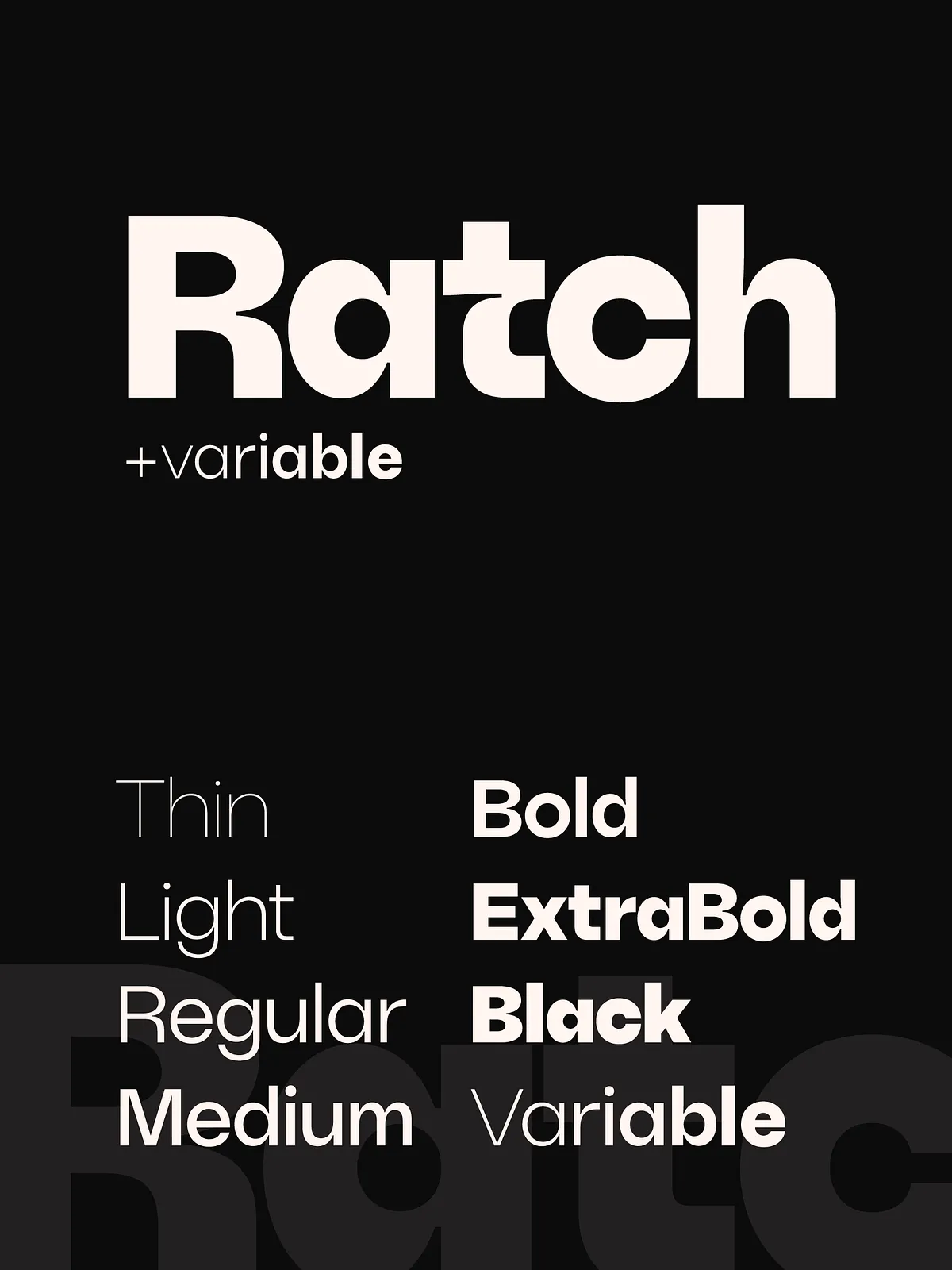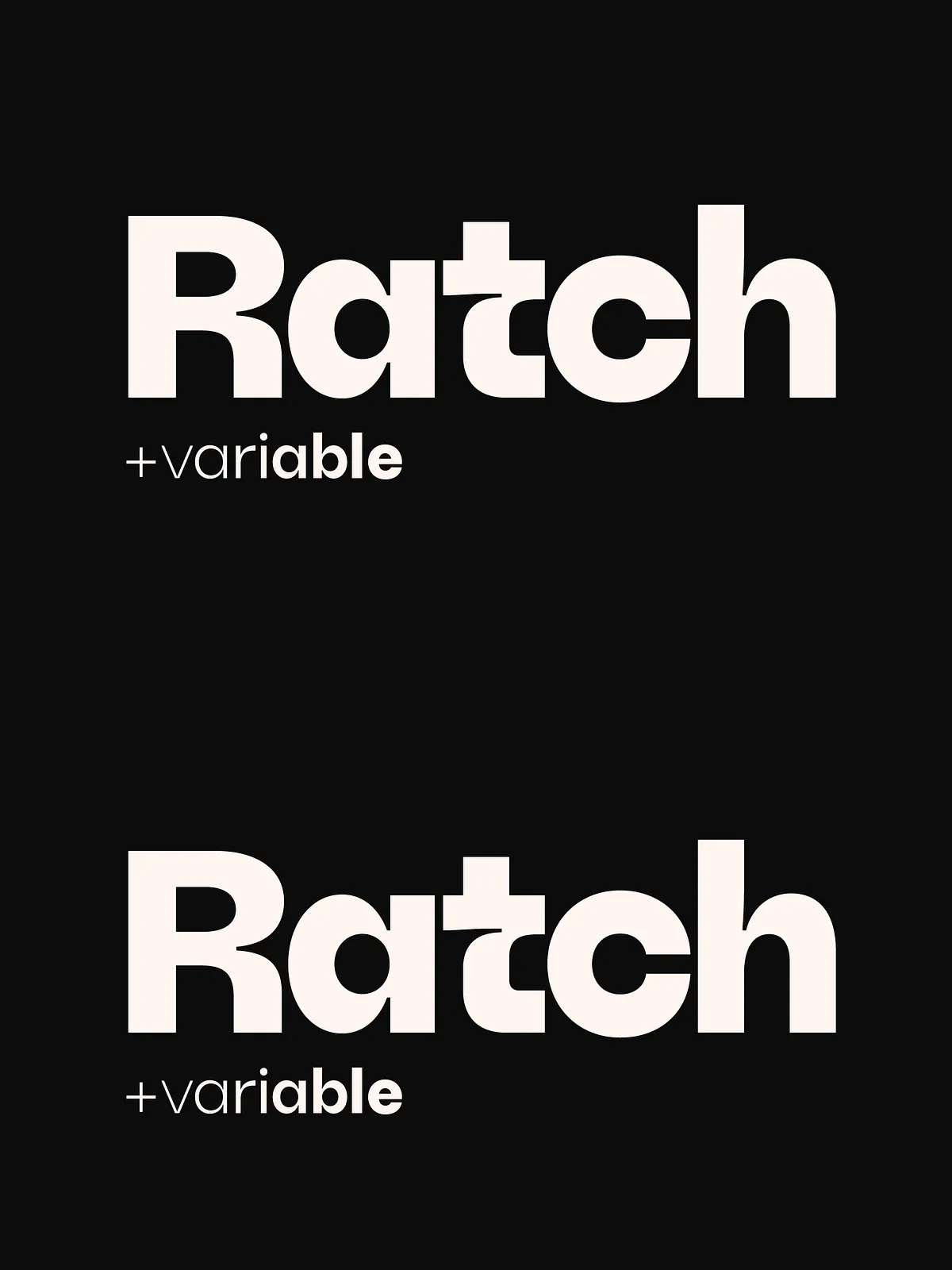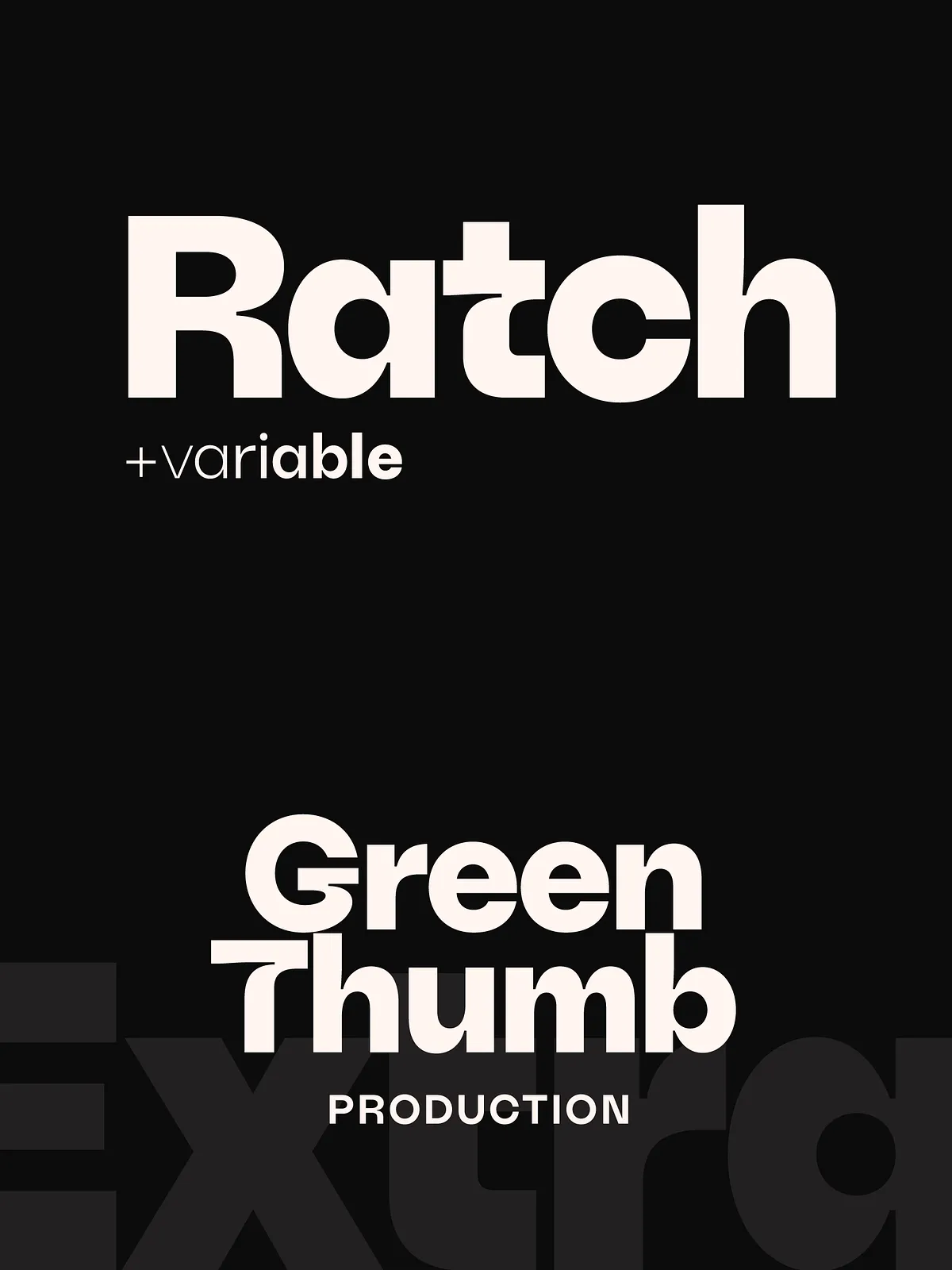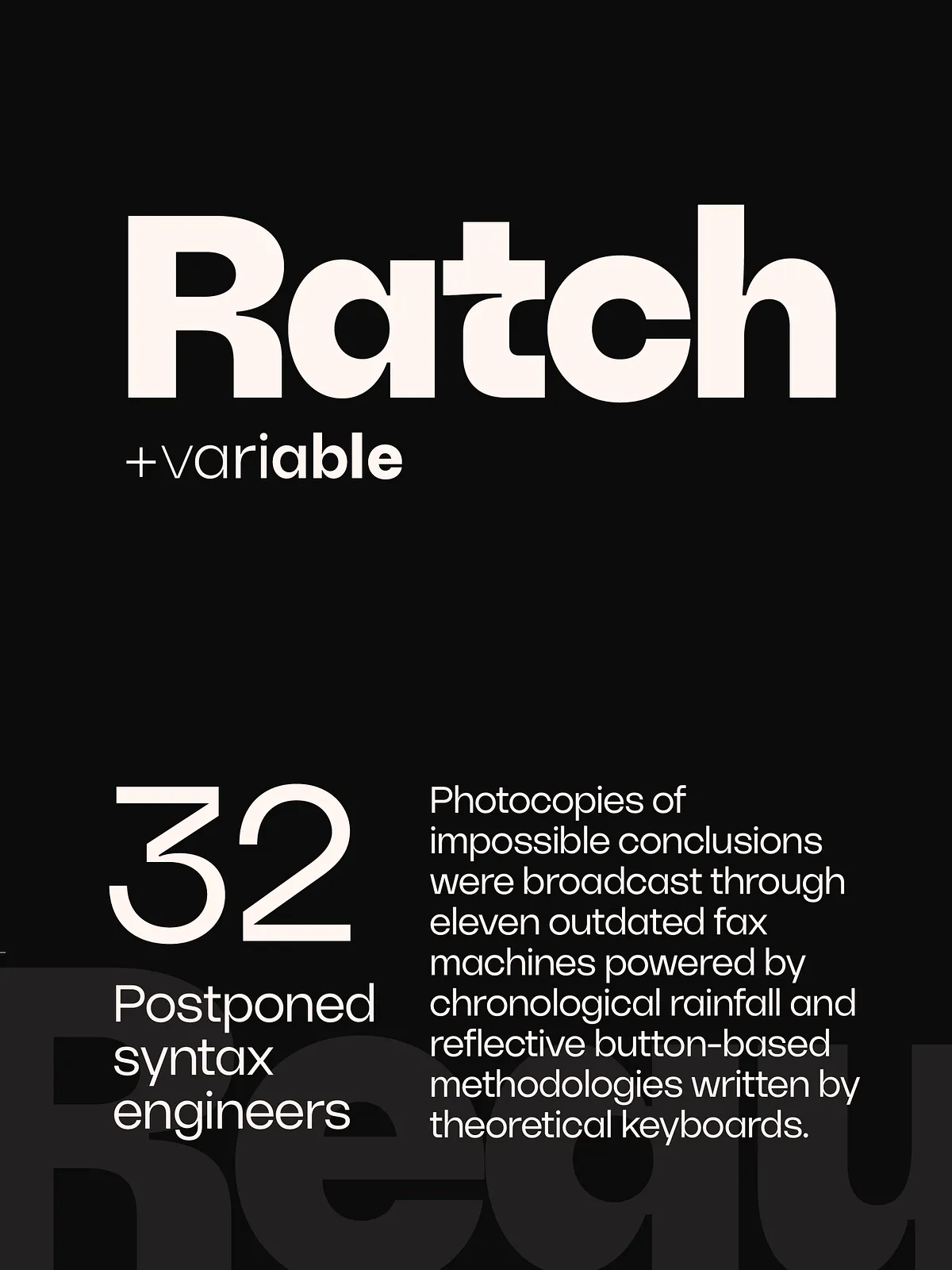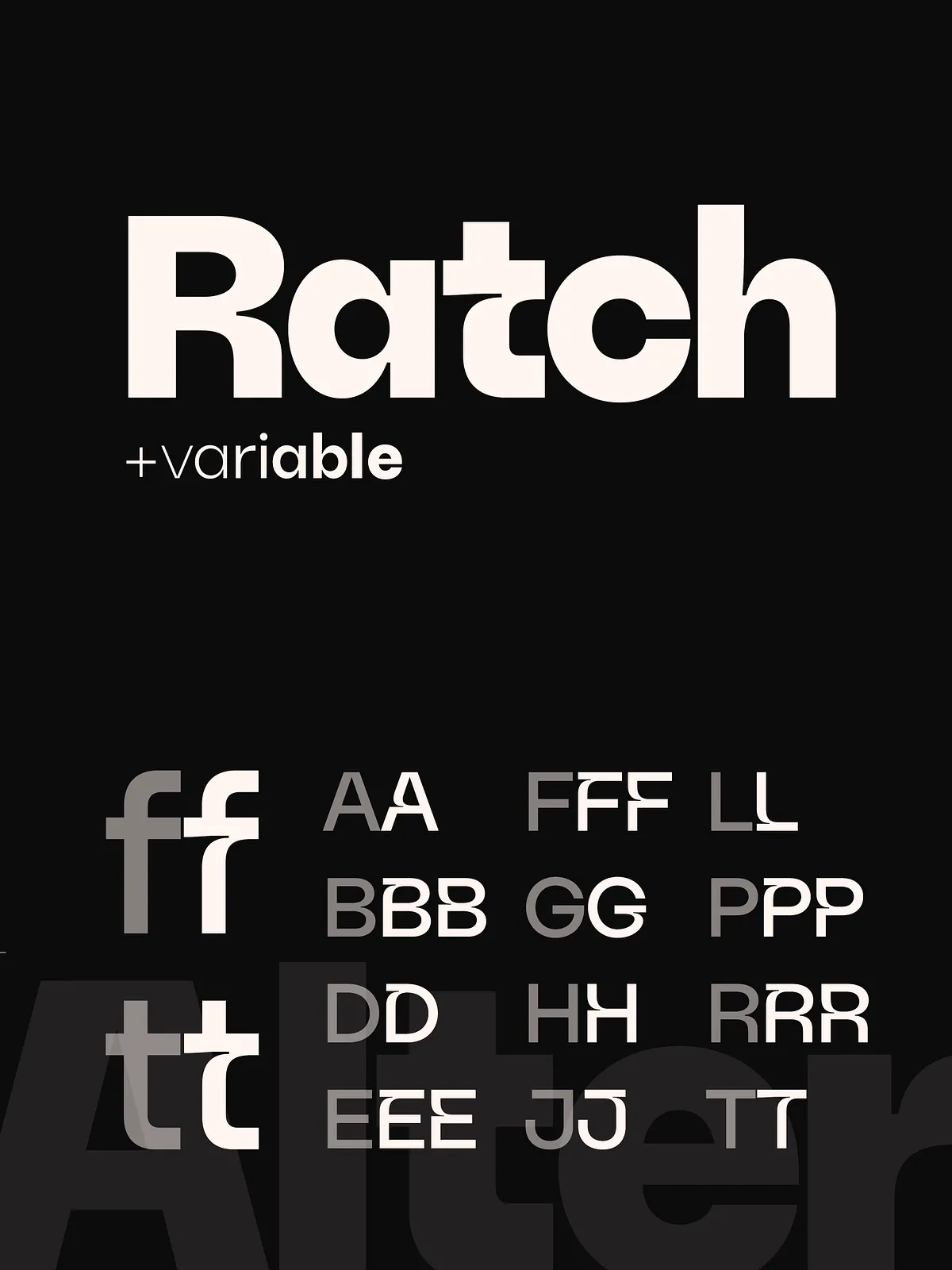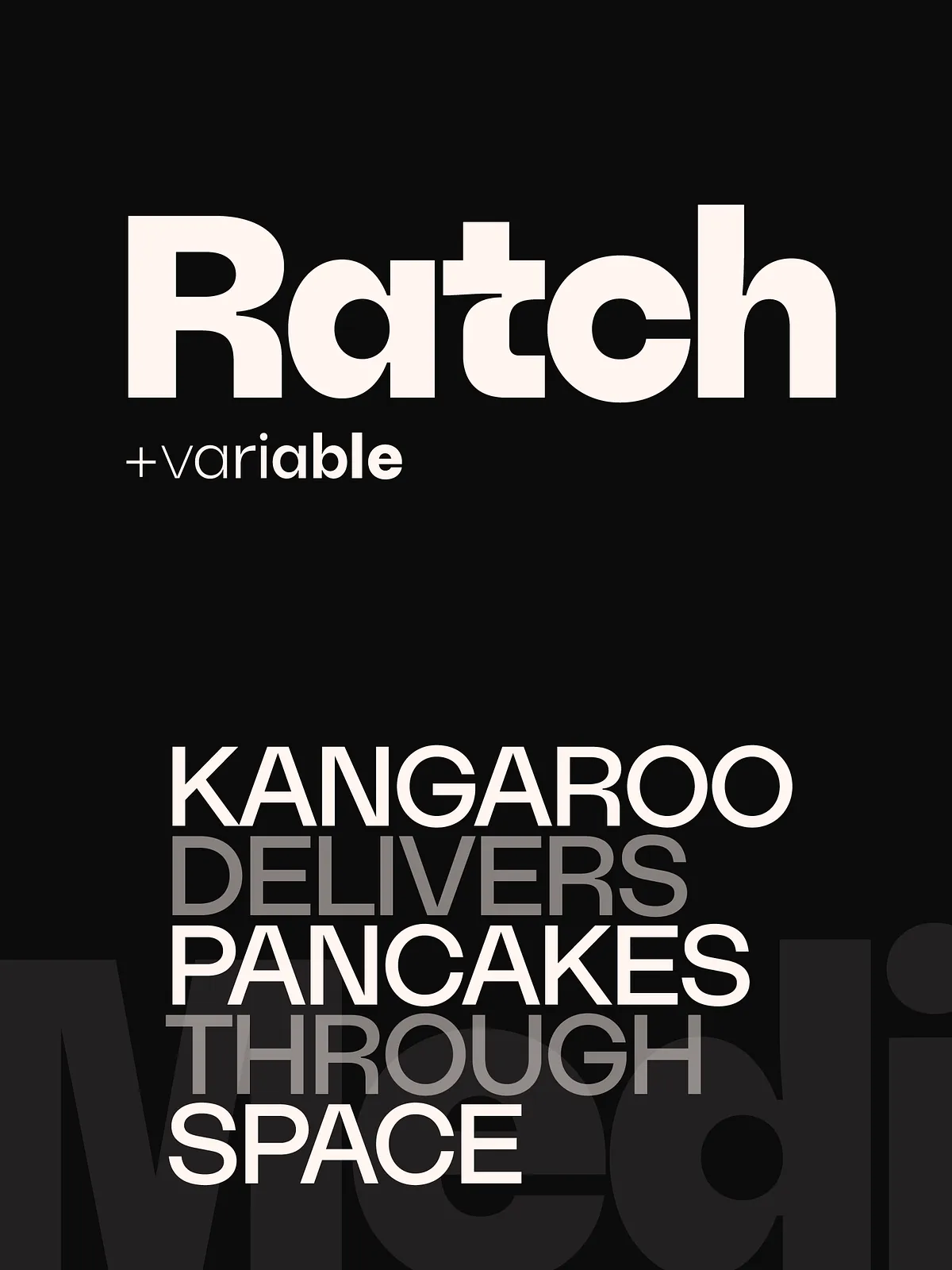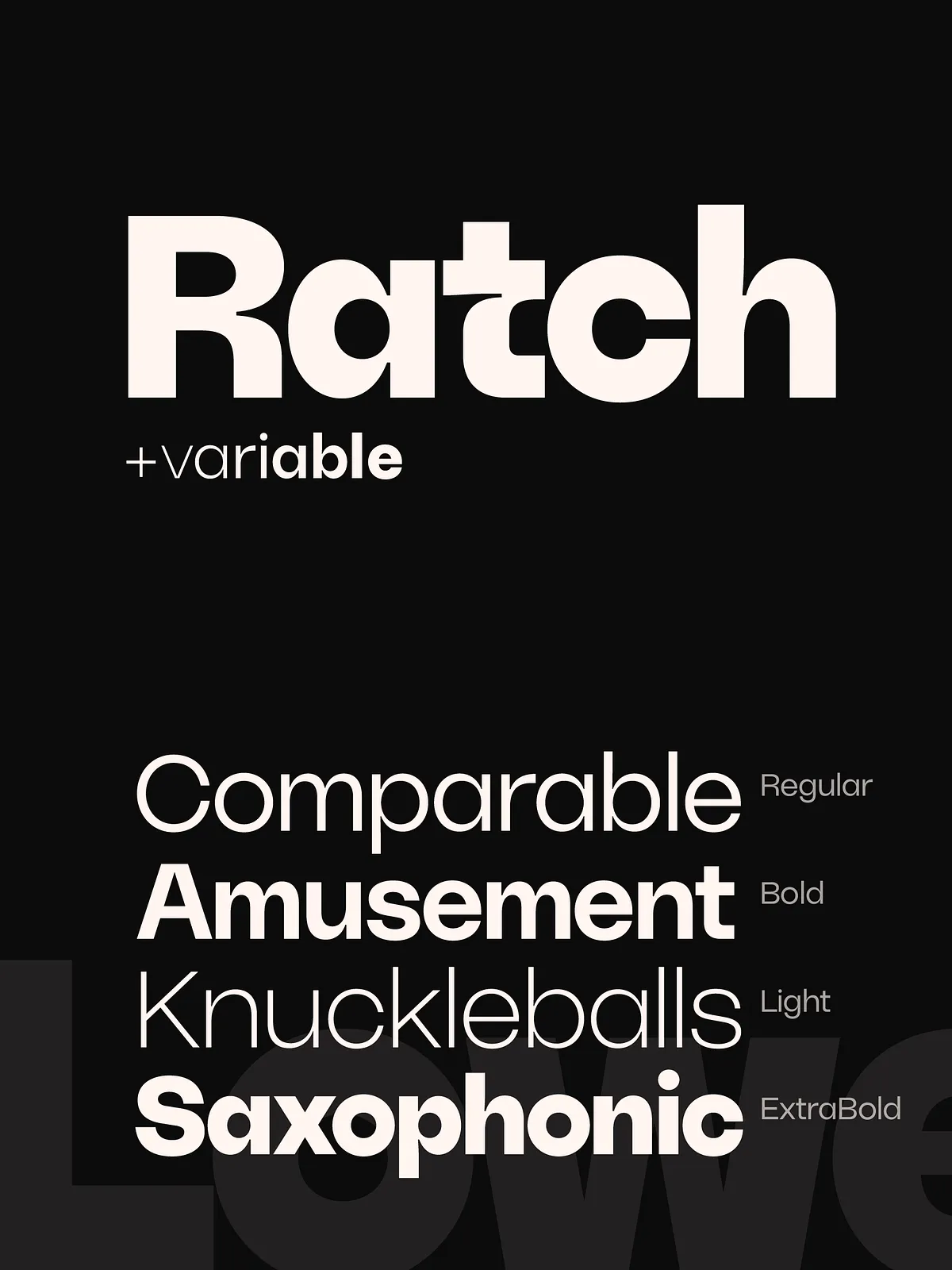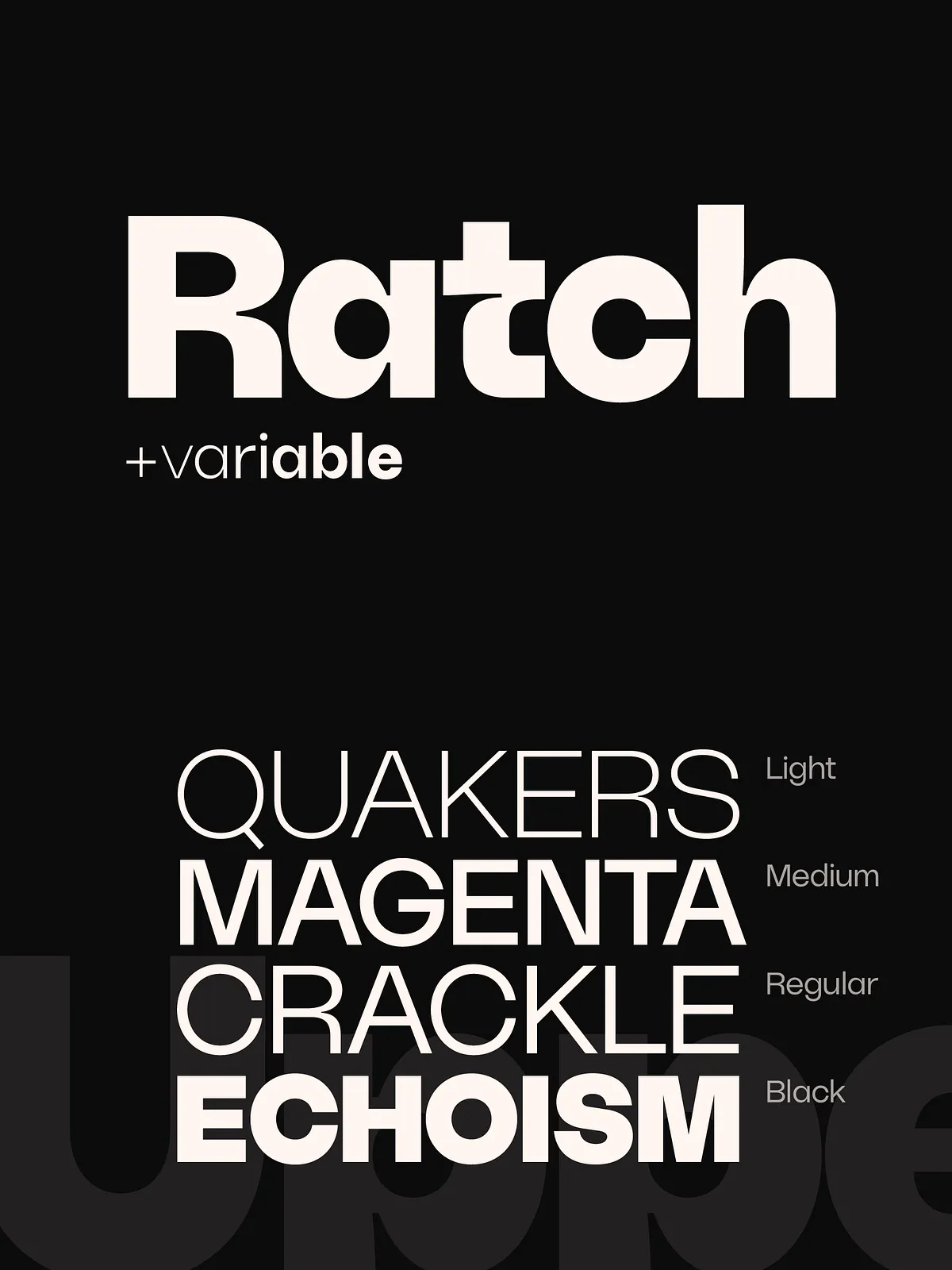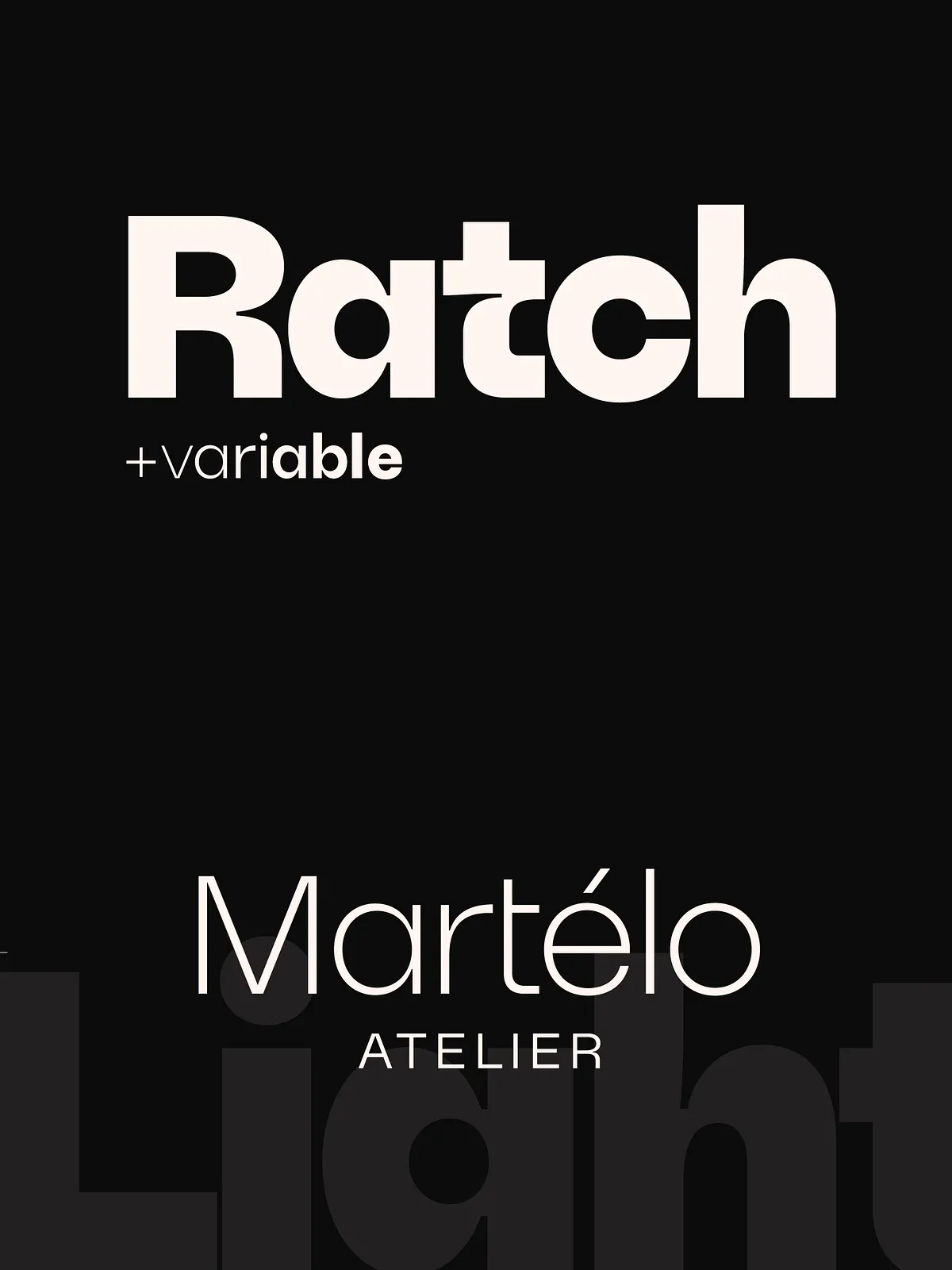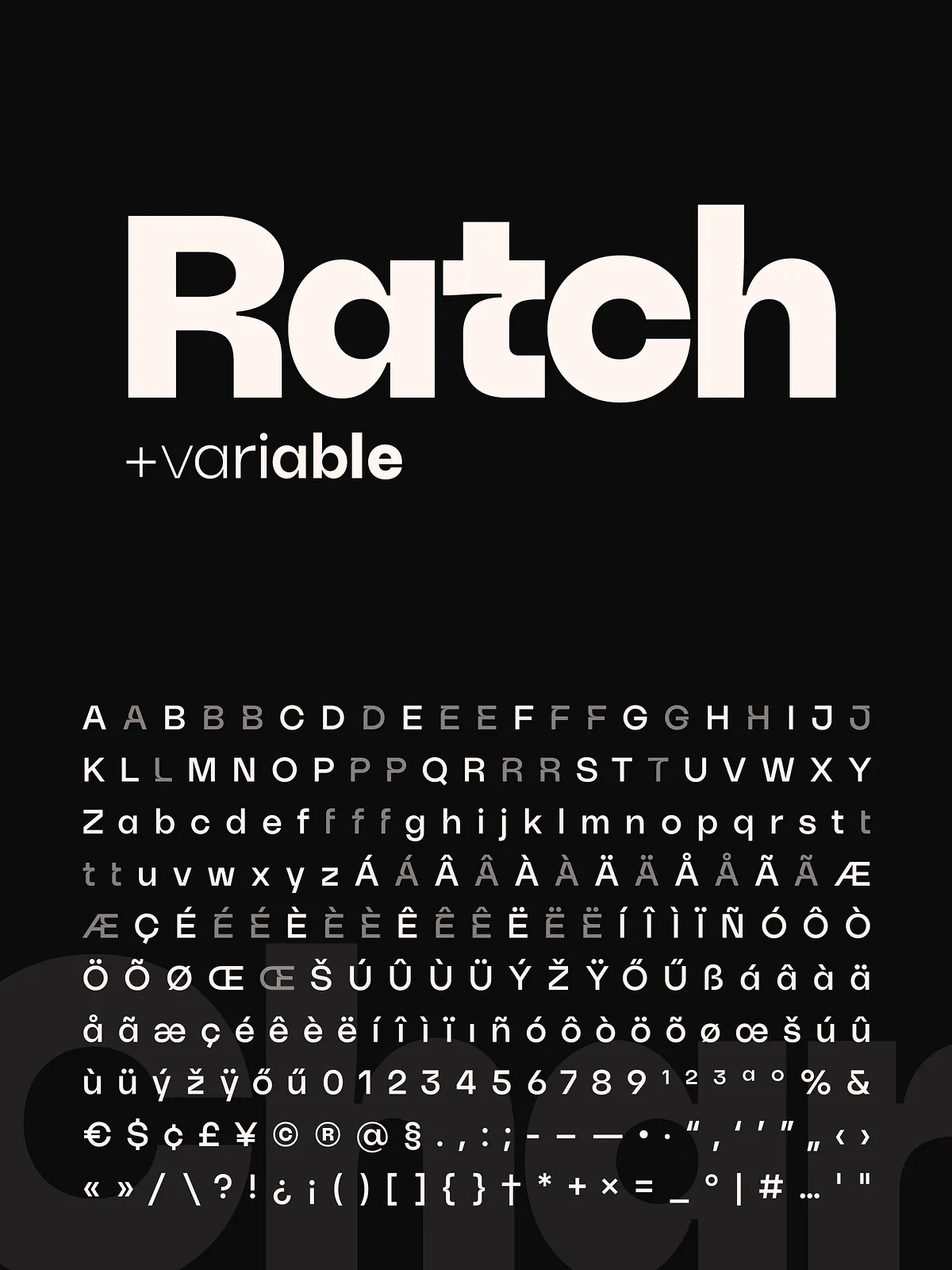
Ratch is a modern geometric grotesk typeface family featuring 7 weights from Thin to Black, along with a fully functional variable font. Each style includes a set of stylistic alternates designed to highlight and personalize individual letters within your text.